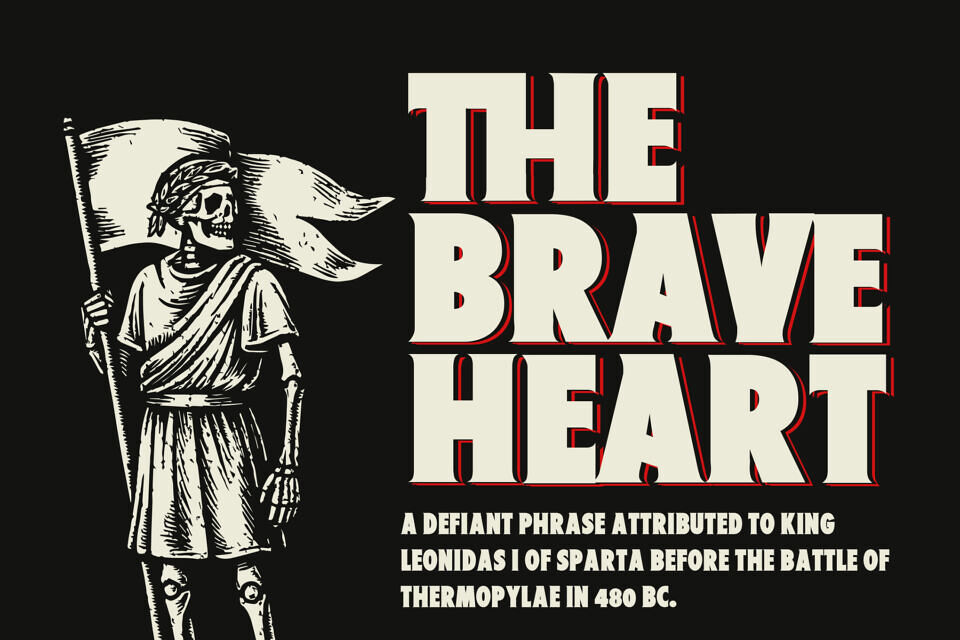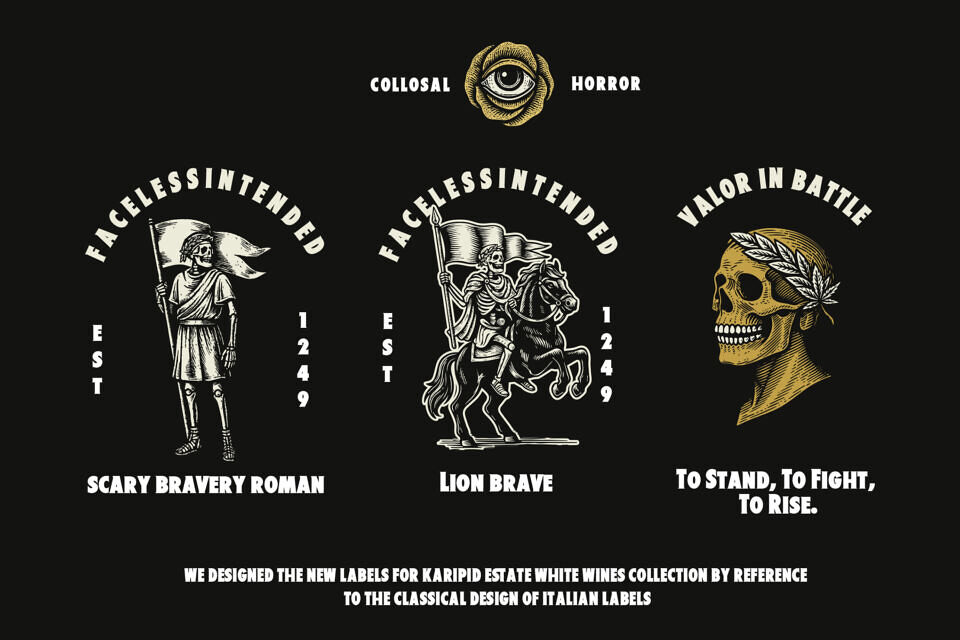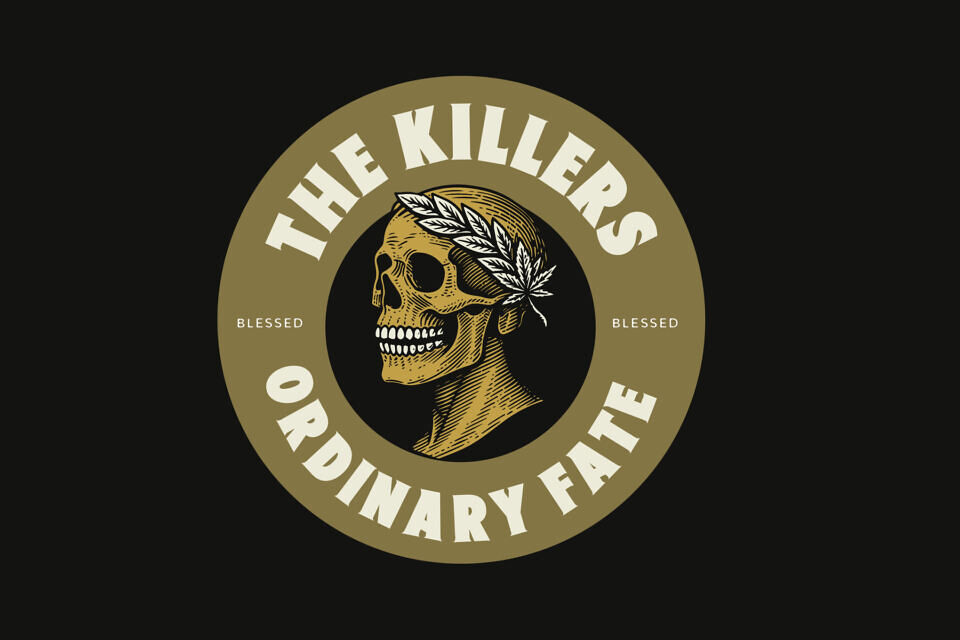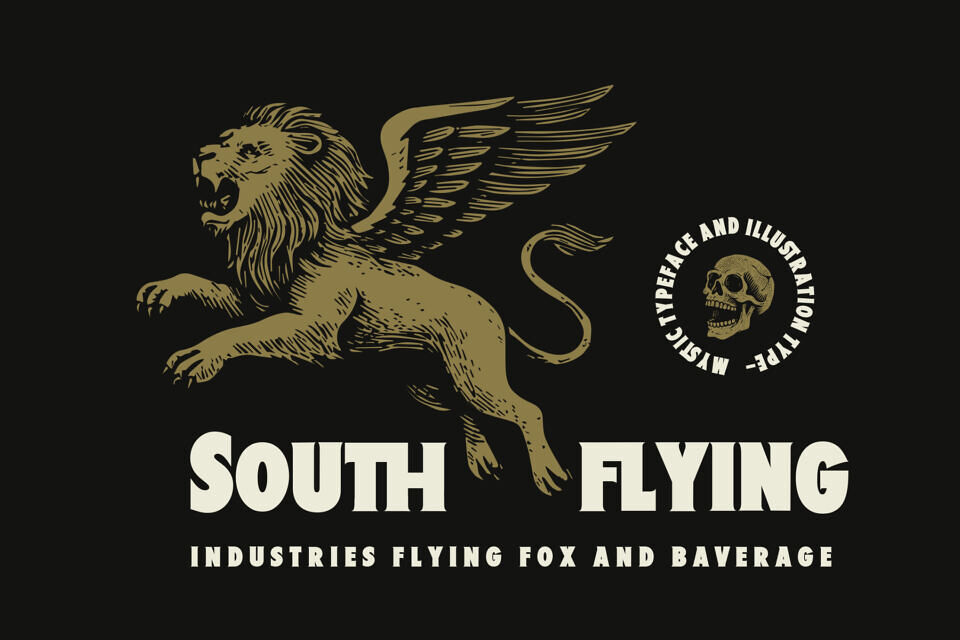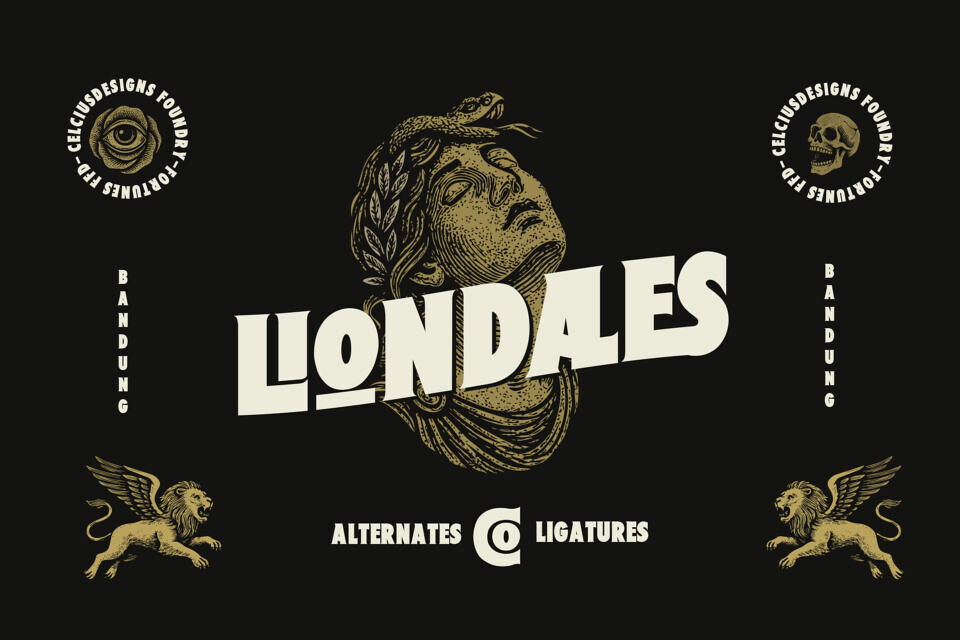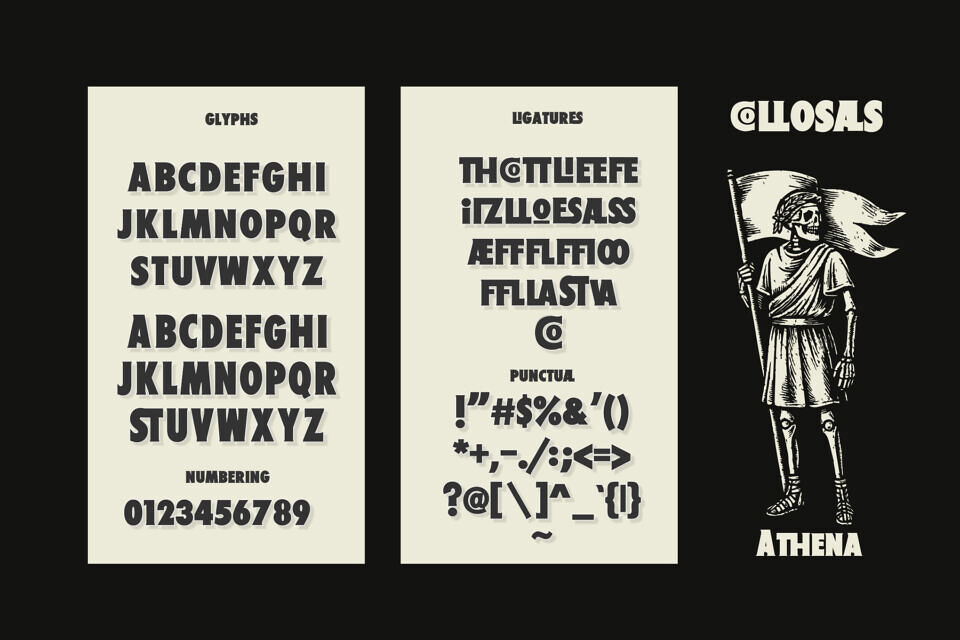
Liondales Font
Step into a world of grandeur with Liondales, a colossal retro serif typeface inspired by ancient legends and timeless design. With its monumental letterforms and dramatic curves, Liondales evokes the spirit of classic empires, heroic tales, and mythical icons.
Crafted to stand tall like stone-carved inscriptions, every glyph carries weight and majesty—perfect for designs that demand attention and authority. Whether you’re designing for film titles, historical branding, vintage posters, or bold editorial layouts, Liondales brings a regal and theatrical feel to your project.